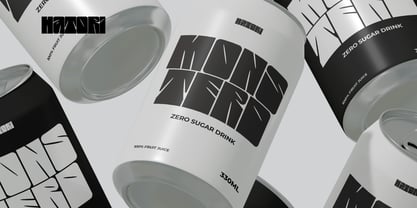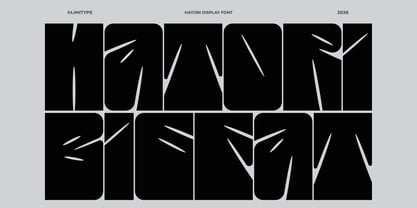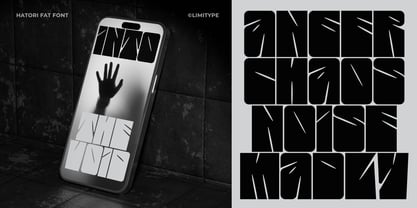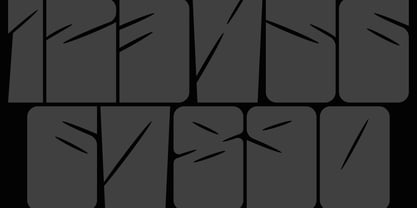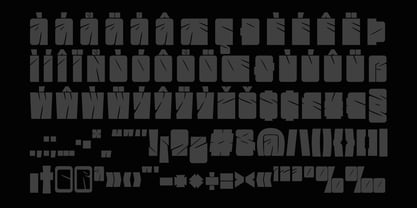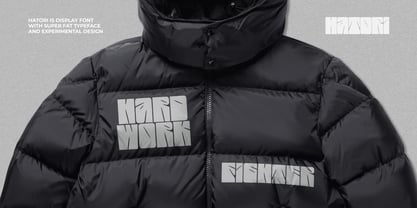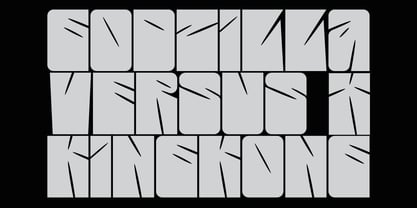
Hatori
by limitype
The Hatori Font Family was designed by Muhammad Muammar, Furqan Sudirman and published by limitype. Hatori contains 1 styles.
Hatori is an extra bold, condensed display font with sharp, aggressive, and modern character, designed to deliver strong visual impact. Suitable for headlines, logotypes, posters, merchandise, and branding that aims to stand out, this font ensures a bold, distinctive, and easily recognizable appearance across both print and digital media. Hatori available with: Allcaps Number Symbol Multilingual